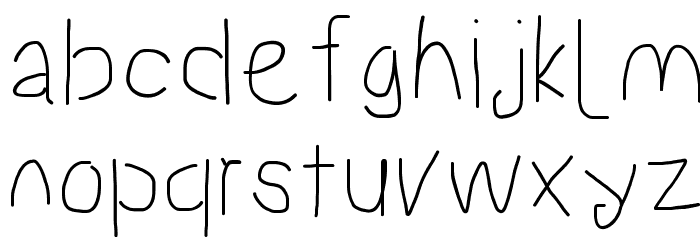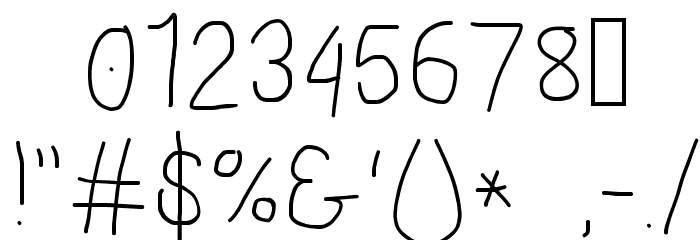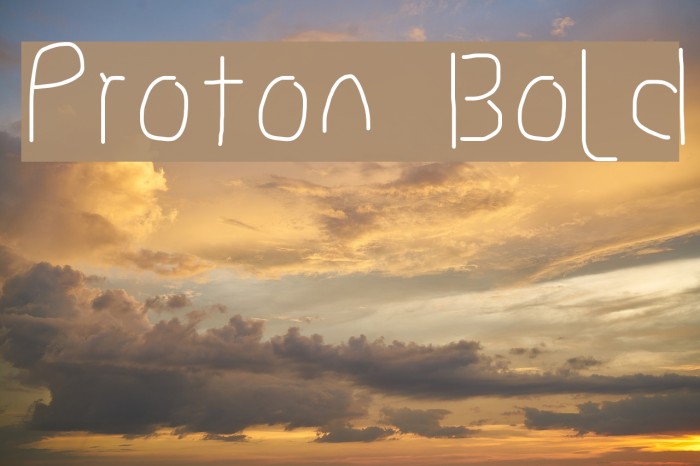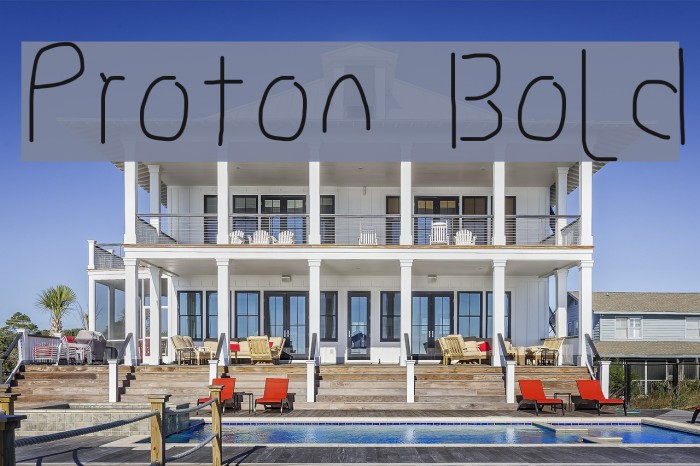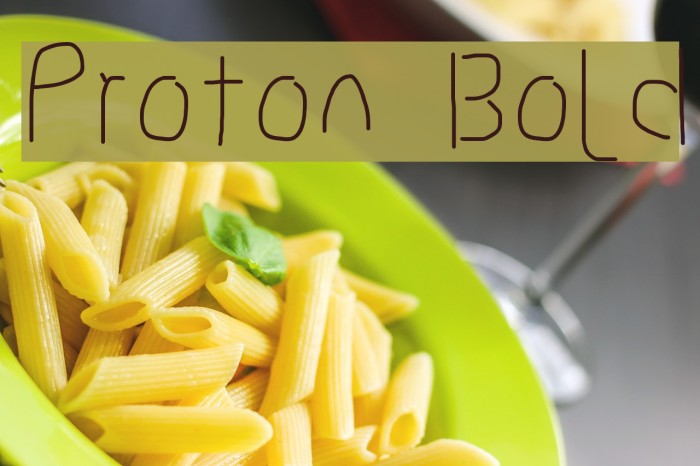
Proton Bold Font
This font features a playful and informal handwritten style, characterized by its irregular strokes and casual appearance. The letters are slightly uneven, giving it a personal and approachable feel. The uppercase and lowercase letters maintain a consistent style, with rounded edges and a slight tilt, enhancing its informal nature. Numbers and special characters follow the same design principles, ensuring a cohesive look across all glyphs. The font's simplicity and charm make it suitable for projects that require a friendly and relaxed tone.
A playful, informal handwritten font with irregular strokes and a casual appearance.
- Proposed Projects: Ideal for greeting cards, children's books, casual invitations, and playful branding.
- Overall Style: Casual
- Use Case: Headlines, Informal text, Creative projects